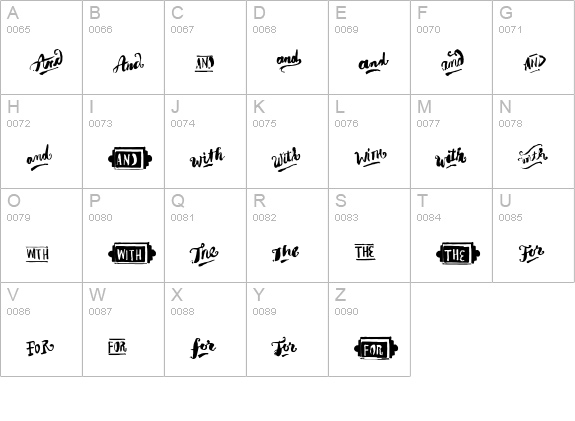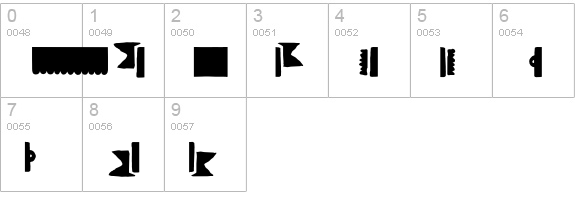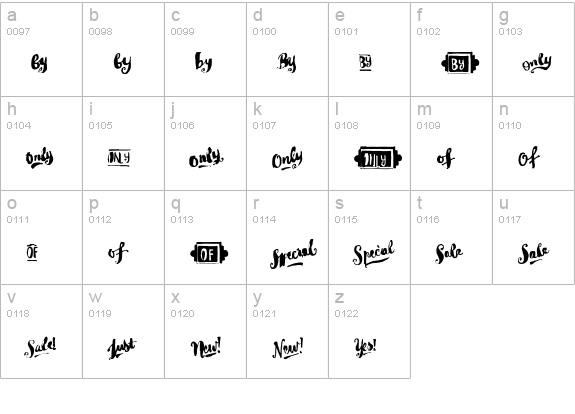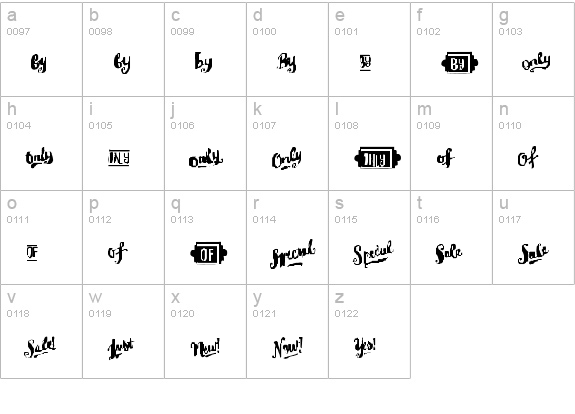
Goodlife Extras is a versatile and stylish font that adds a touch of whimsy and creativity to any design project. With its unique characters and whimsical flourishes, this font is perfect for creating eye-catching headlines, logos, and branding materials. The Goodlife Extras font includes a wide range of extra glyphs, icons, and ornaments that can be used to customize your designs and make them truly stand out. Best of all, this font is available for free download at FontsMarket.com, making it easy for designers to access and use in their projects without any added cost. Elevate your designs with the playful and charming Goodlife Extras font today!